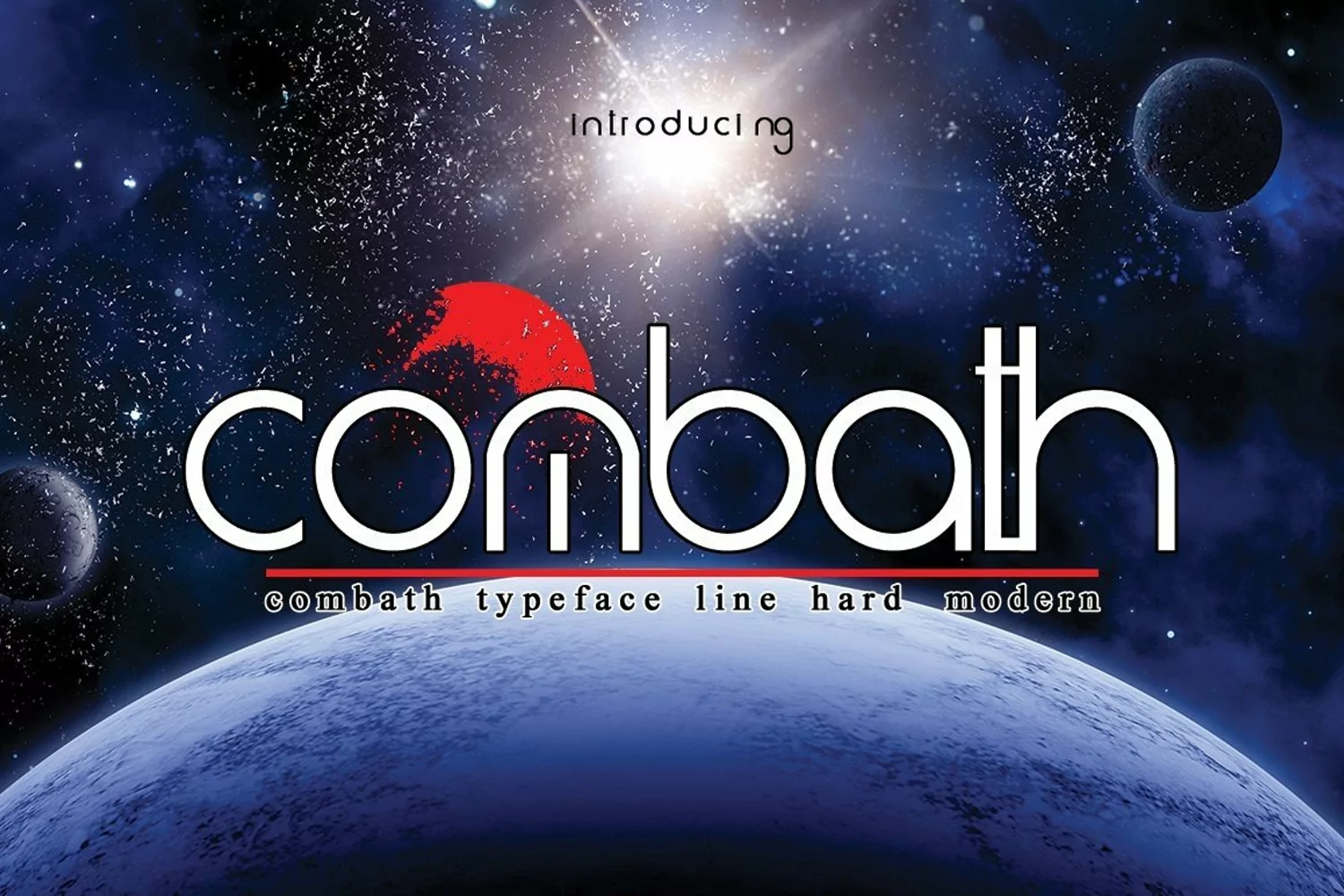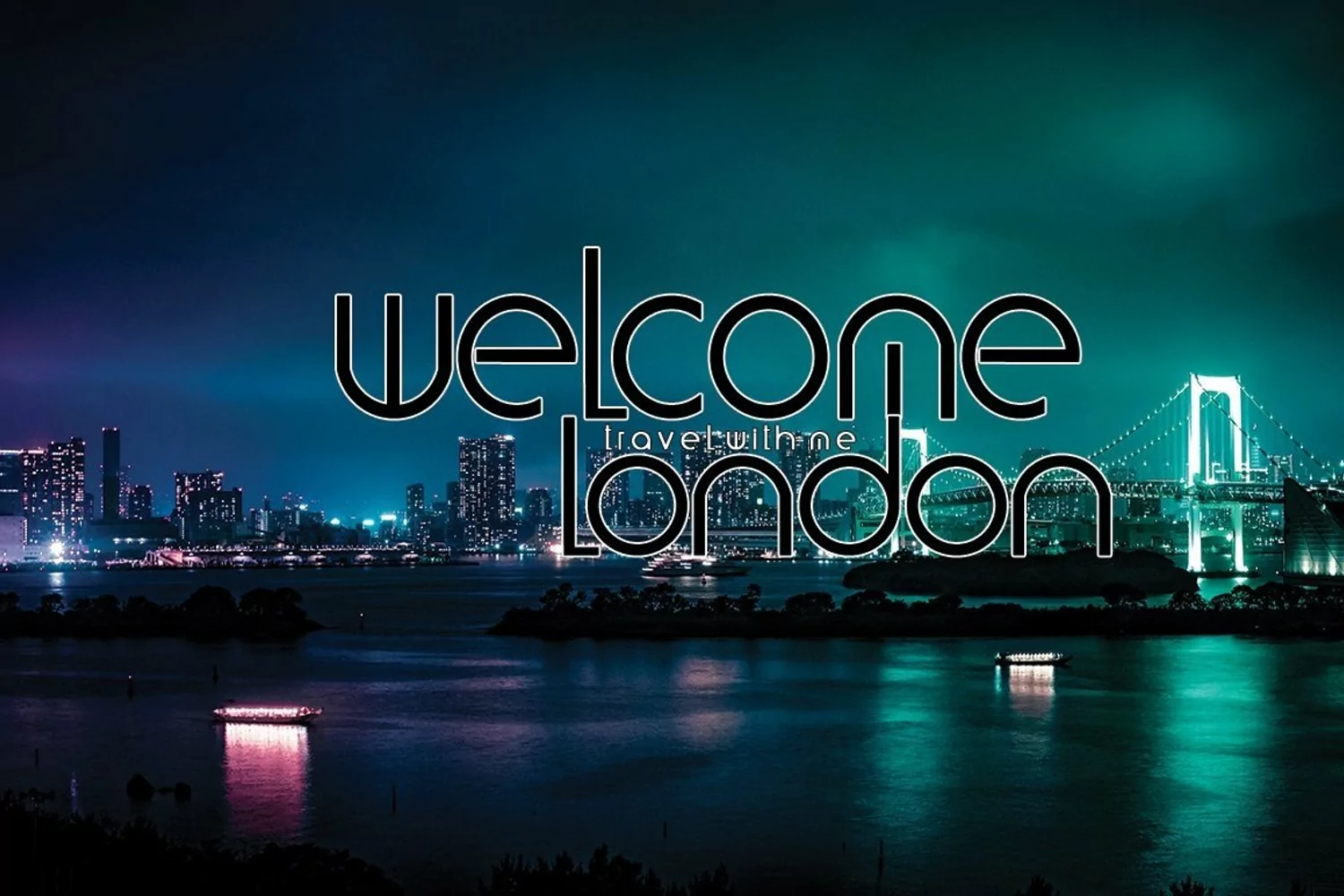
Web Font Combath
Combath Typeface a minimalist typeface is perfect
for namecards, posters, logos, magazine covers, banners, tshirts and
headers, or even large-scale artwork.